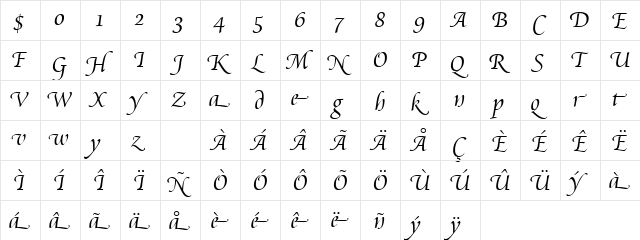
Cataneo LtSwash BT Light Swash Font Preview
Cataneo LtSwash BT Light Swash
Design Context for Cataneo LtSwash BT Typeface
Cataneo LtSwash BT flows with the natural rhythm of handwritten lettering, making it ideal for designs that call for warmth and personal expression. Its slender proportions lend an understated elegance to any composition.
Font Pairing: Combine Cataneo LtSwash BT with a simple geometric sans for maximum contrast — the tension between flowing curves and clean structure is a classic typographic pairing.
Pro Tip: Use Cataneo LtSwash BT for short runs of text — names, titles, or taglines. Extended body copy in script faces tires the eye quickly.